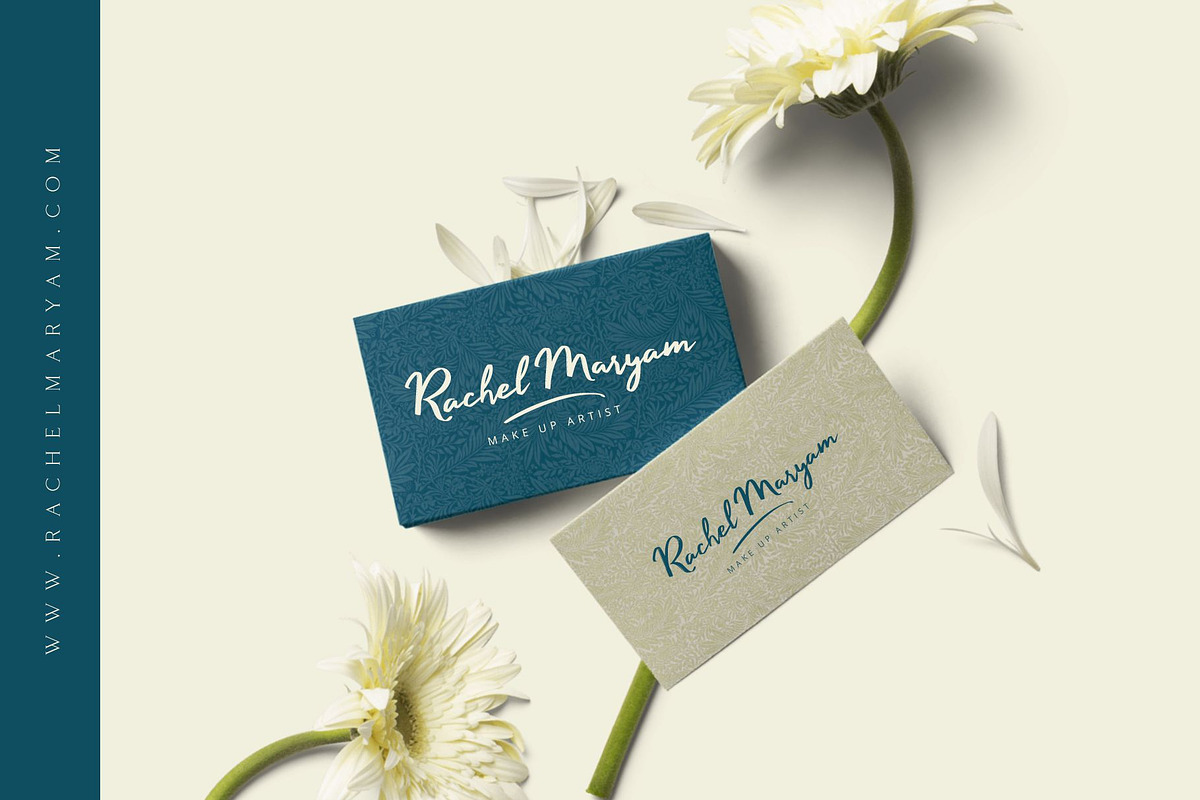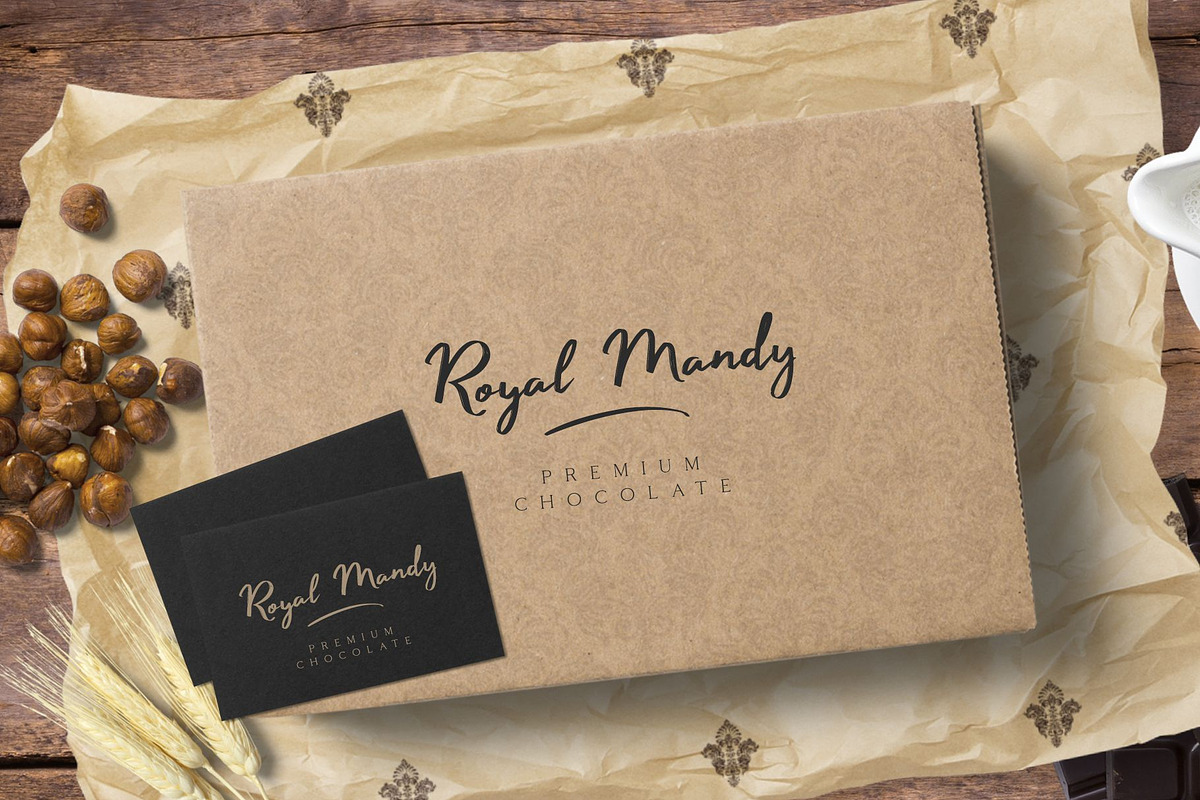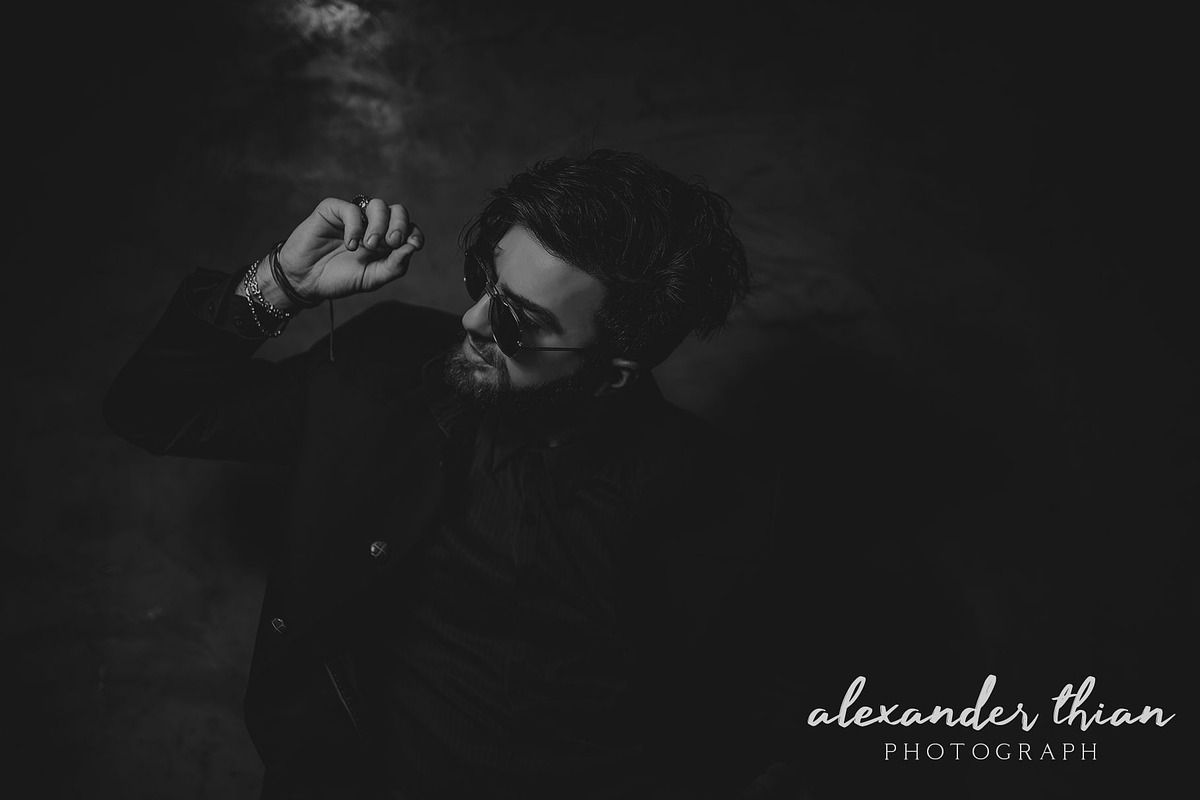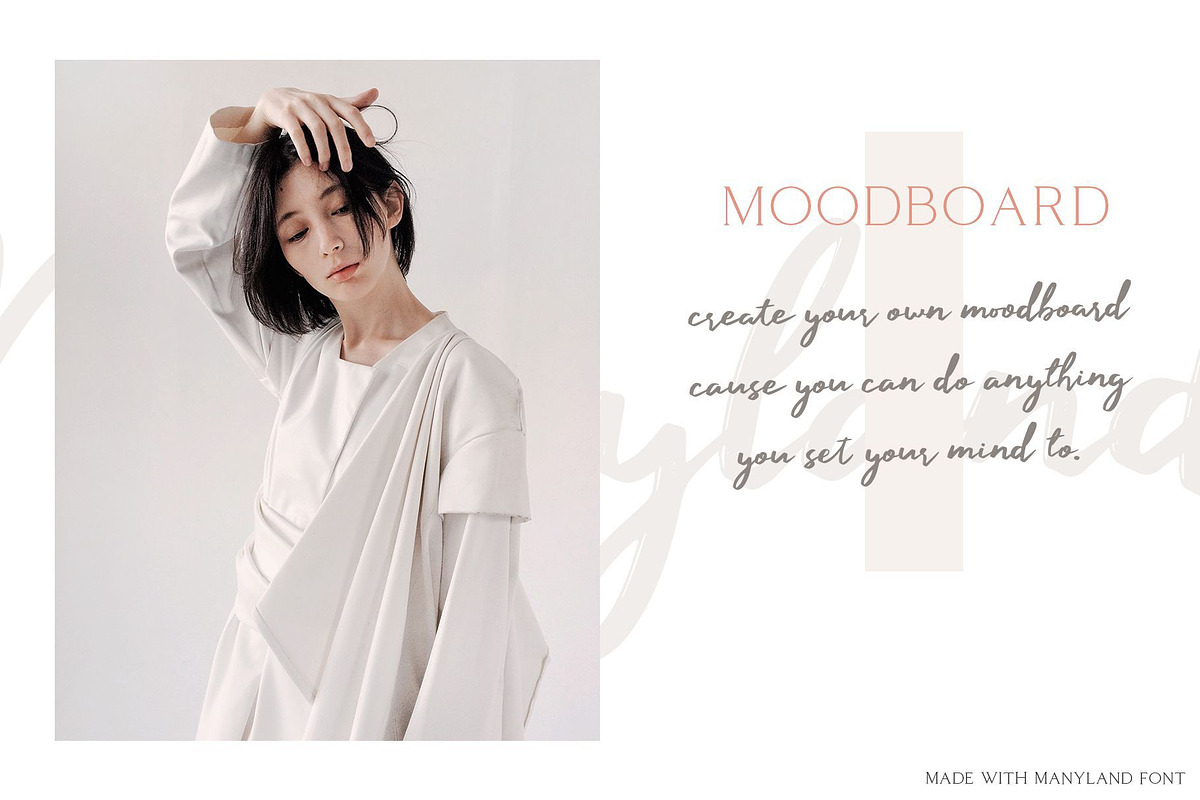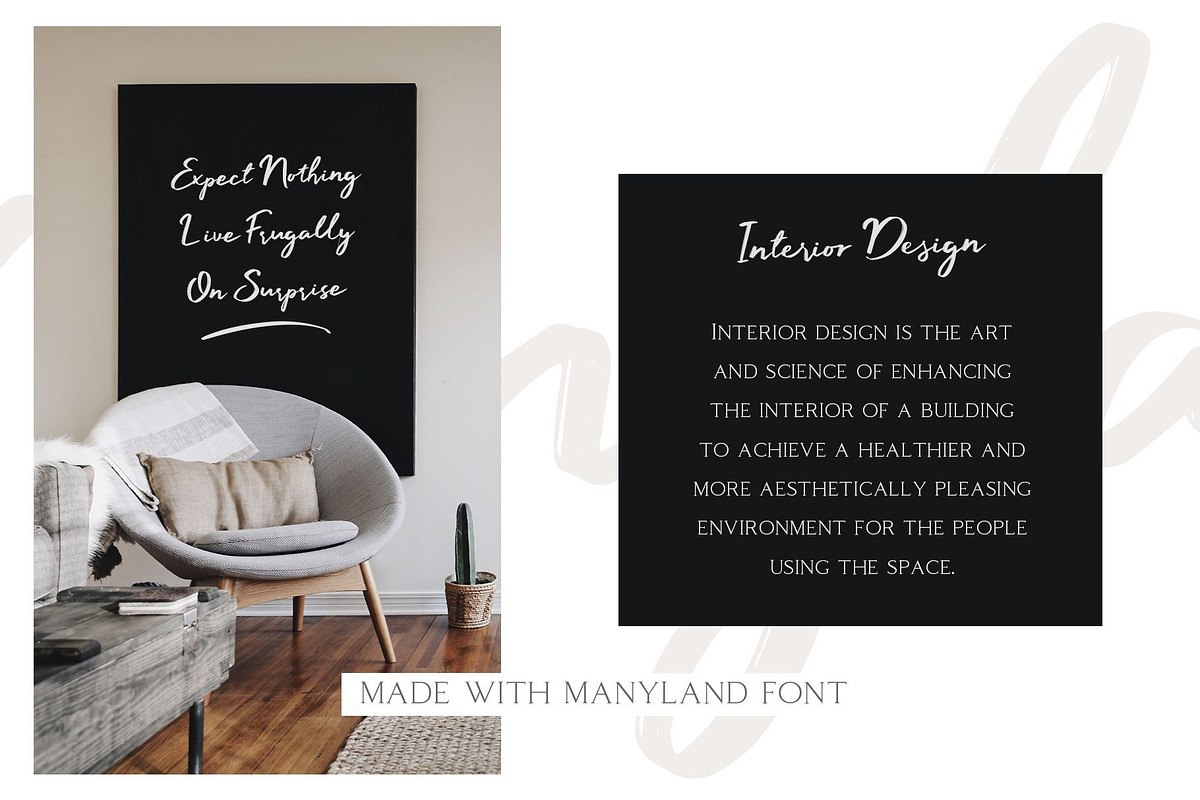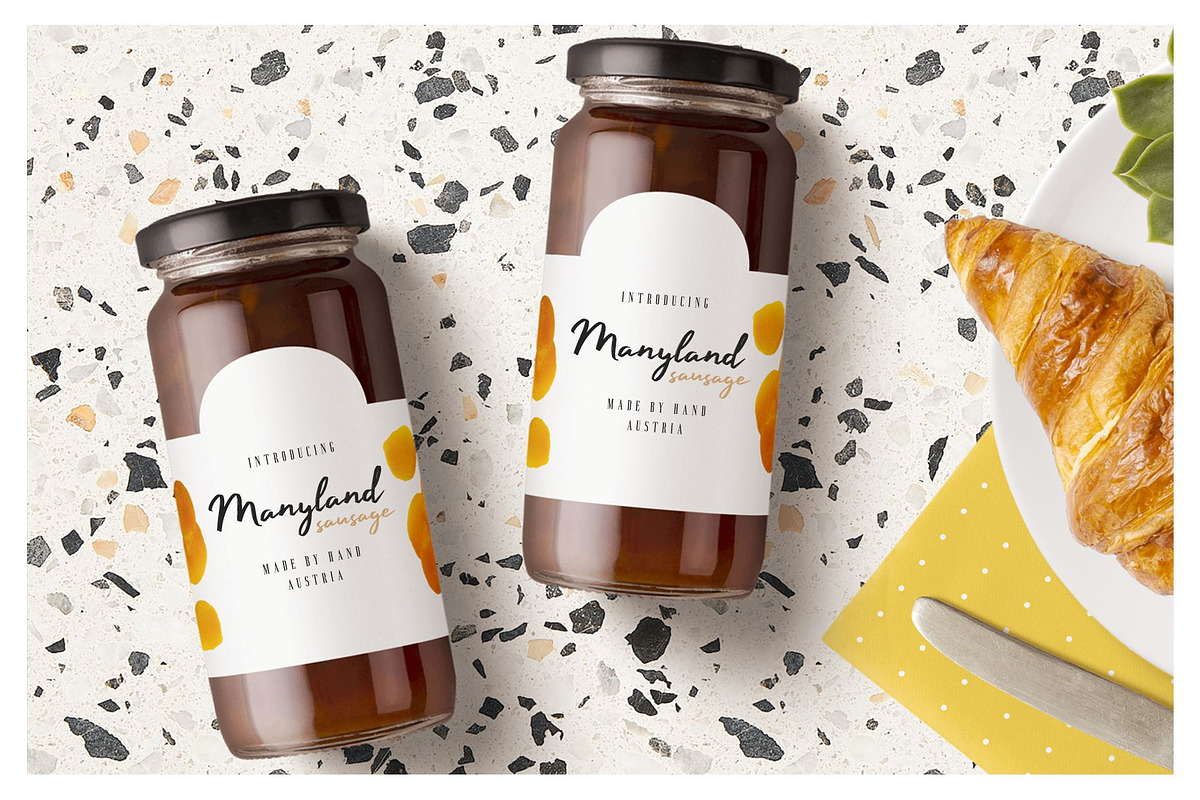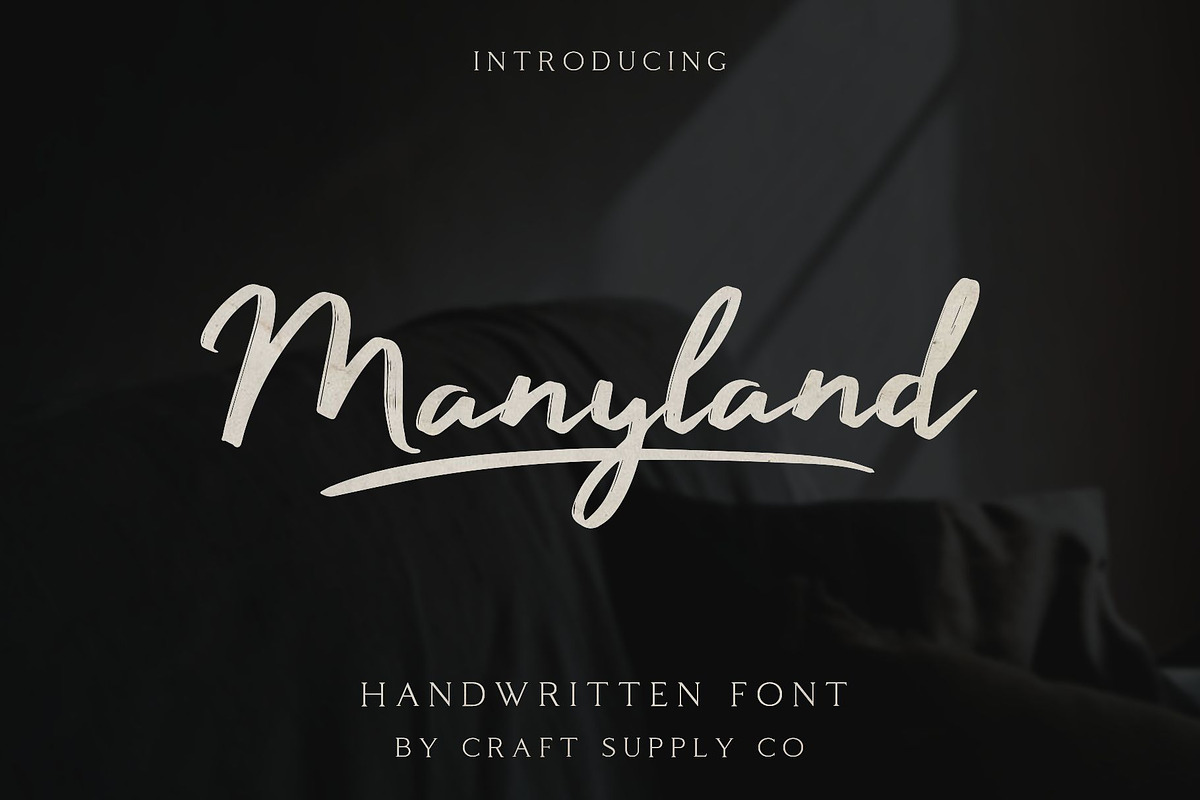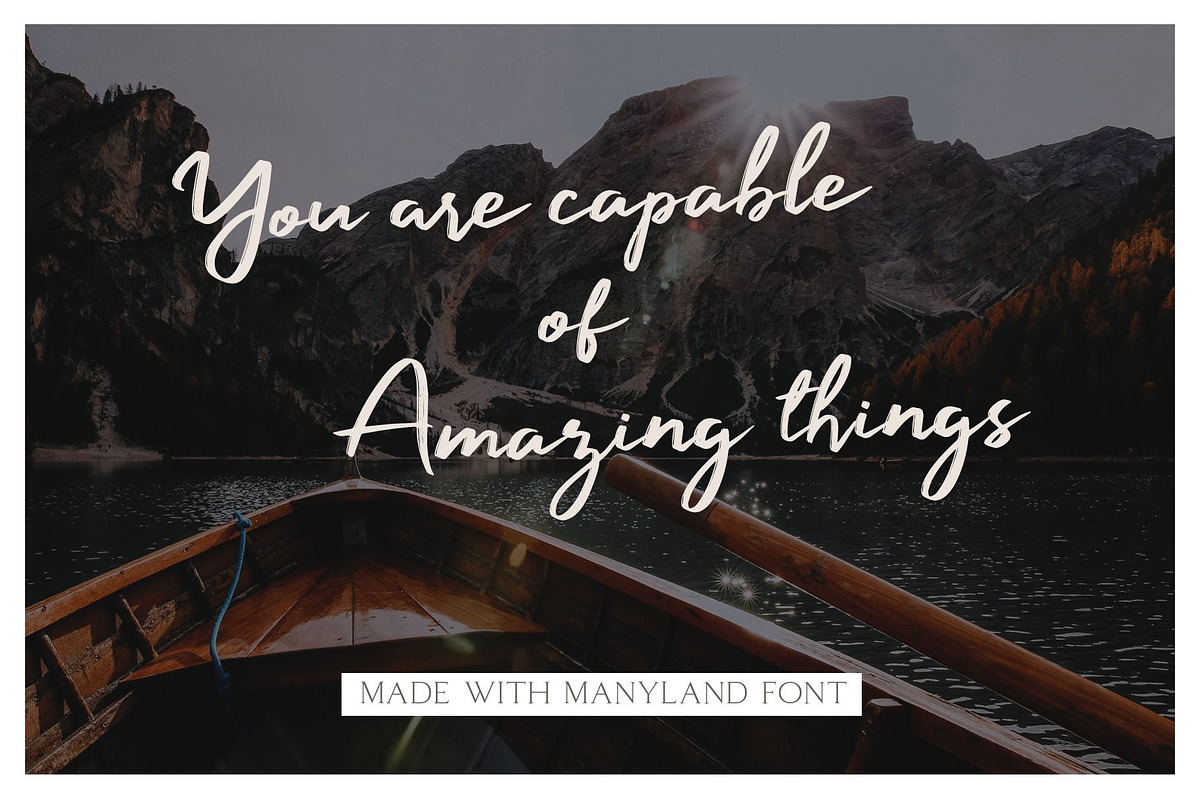
Manyland - Handwritten Font
Introducing Manyland - Handwritten Font
Manyland - Handwritten Font is a free-flowing monoline, the style typeface exploits the common letter-to-letter transitions of the typical cursive hand by utilizing style points controlled within the machinations of OpenType Contextual Alternates.
5. Accents (Multilingual characters) (AÀÁÂÃÄÅCÇDÐEÈÉÊËIÌÍÎÏNÑOØÒÓÔÕÖUÙÜÚÛWYÝŸỲŸÆŒßÞ)
- Features :
- Uppercase and Ligatures
- Special Ligatures (tt oo ll tl t t tk tb tf th)
- Stylistic
- Features :
- 1. Uppercase and Ligatures
- 2. Special Ligatures (tt oo ll tl t t tk tb tf th)
- 3. Stylistic
- 4. Numerals & Punctuations (OpenType Standard)
- 1. Uppercase and Ligatures
- 2. Special Ligatures (tt oo ll tl t t tk tb tf th)
- 3. Stylistic
- 4. Numerals & Punctuations (OpenType Standard)
- 5. Accents (Multilingual characters) (AÀÁÂÃÄÅCÇDÐEÈÉÊËIÌÍÎÏNÑOØÒÓÔÕÖUÙÜÚÛWYÝŸỲŸÆŒßÞ)
- 6. PUA Encoded
- Manyland Regular
- Manyland Swash